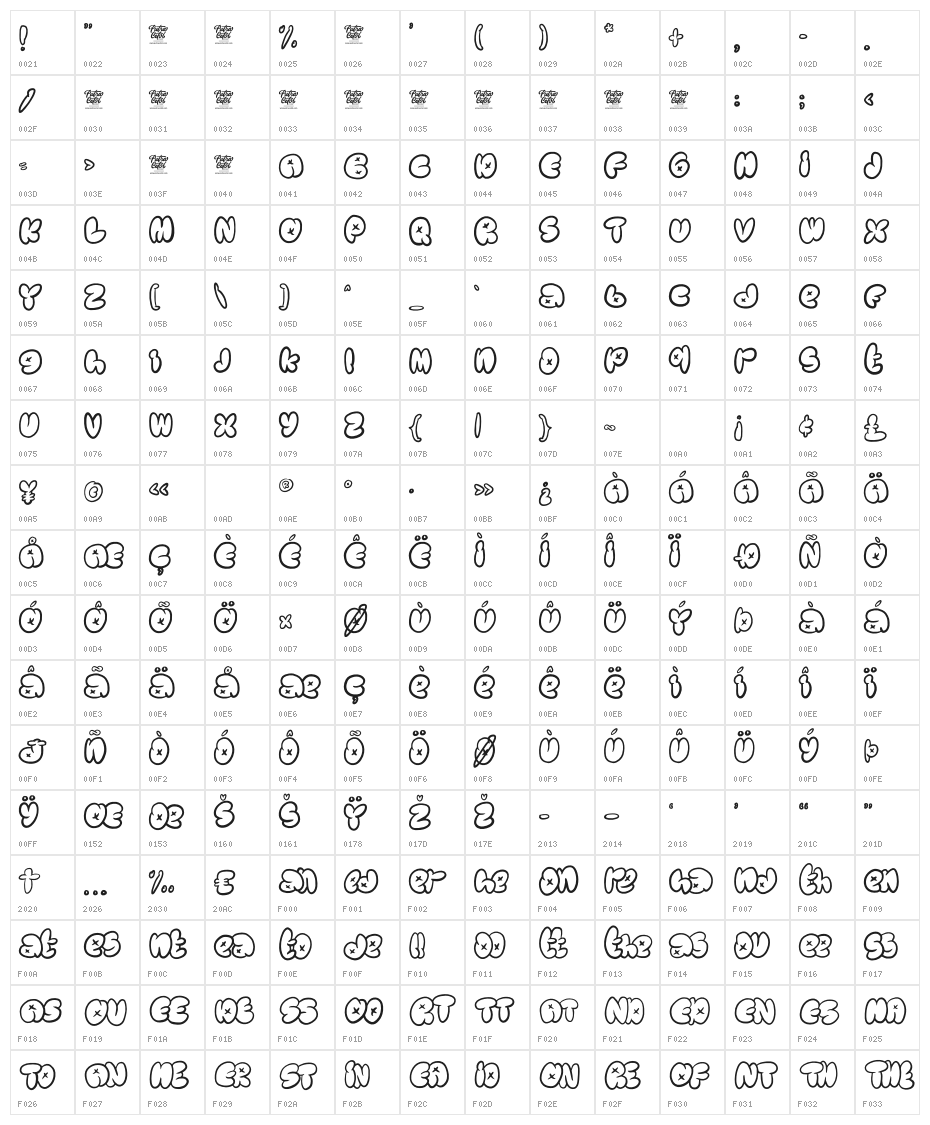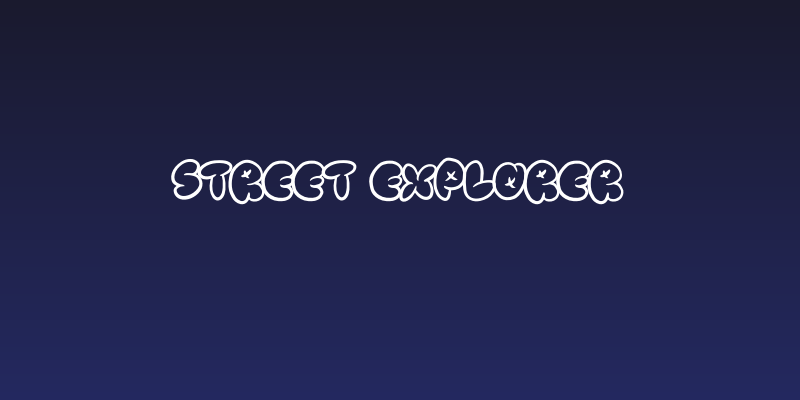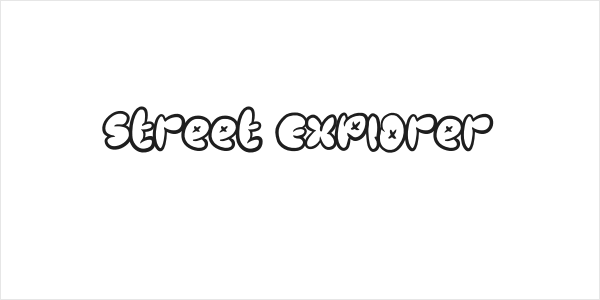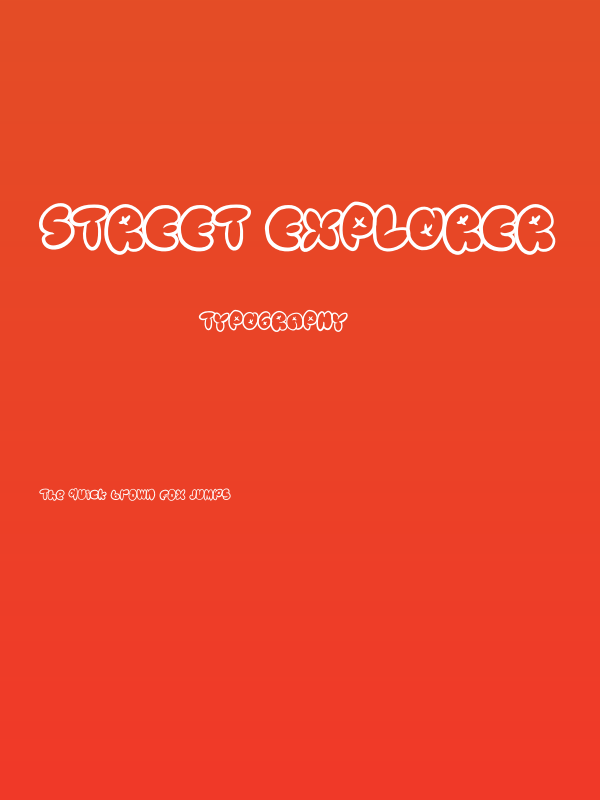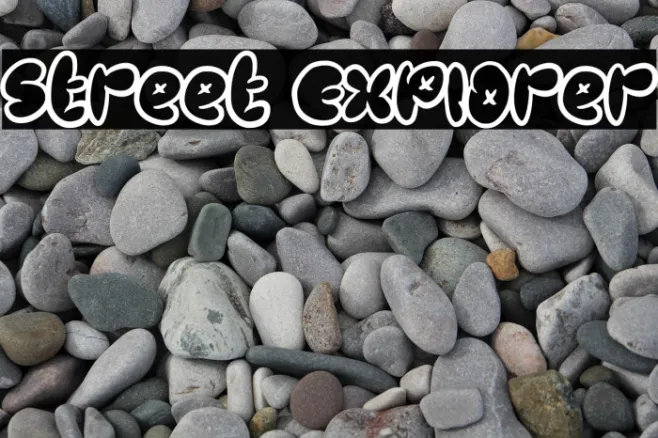
Street Explorer Font
Street Explorer Description
This playful and bold font features a bubble-like design with thick, rounded edges and a unique star cutout in the center of each character. Its exaggerated curves and whimsical style make it stand out, providing a fun and energetic feel. The font maintains a consistent weight throughout, with a slightly expanded width that enhances its visibility and impact. The character spacing is normal, allowing for easy readability despite its decorative nature. The font's high contrast between the thick outlines and the inner space adds to its dynamic appearance, making it suitable for creative and informal applications.
| Overall Style | Playful, Energetic, Whimsical |
| Proposed Projects | Ideal for children's book covers, playful branding, party invitations, and eye-catching posters. |